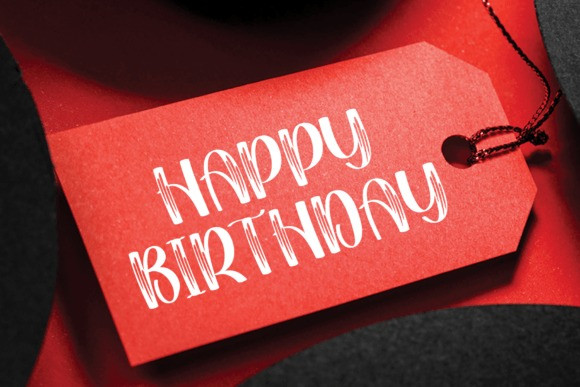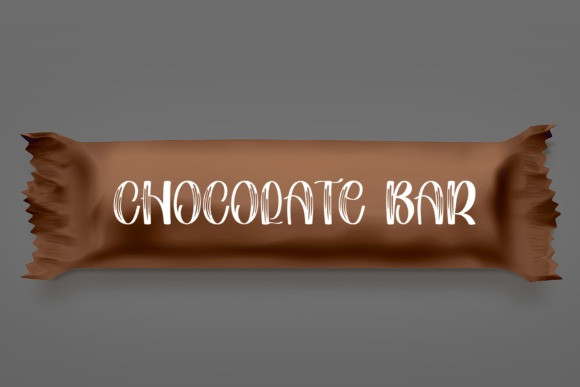
Barbie Friend Font
Barbie Friend Font a charmingly sweet and friendly handwritten display font. Its endearing appeal perfectly captures the essence of warmth and joy. Ideal for crafting stylish wedding invitations, affectionate cards, or any design that aspires to inject a lively, fun touch. Capture hearts with this adorable, playful font that transforms every design into a delightful visual experience.